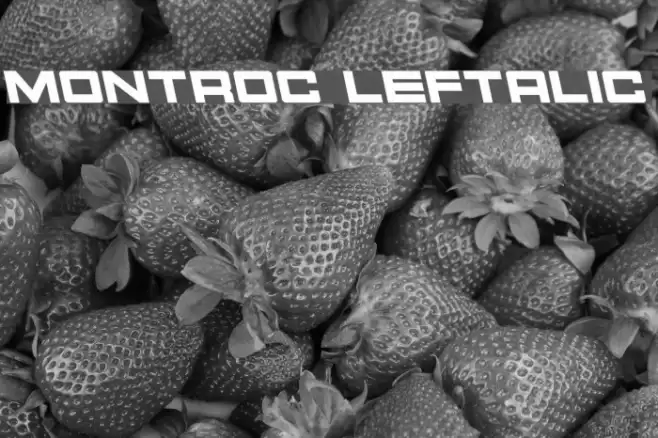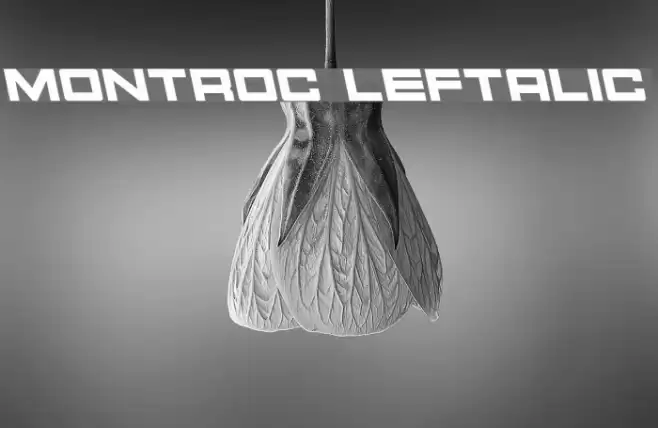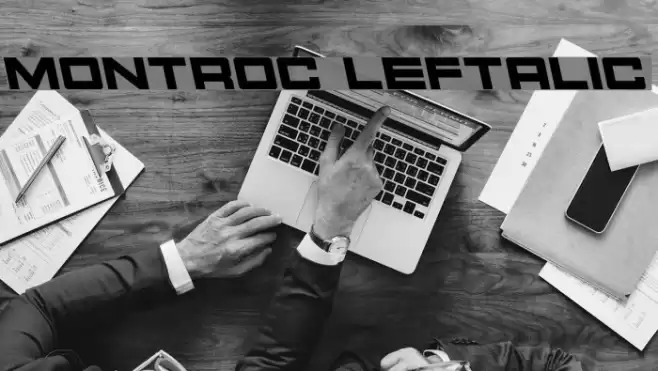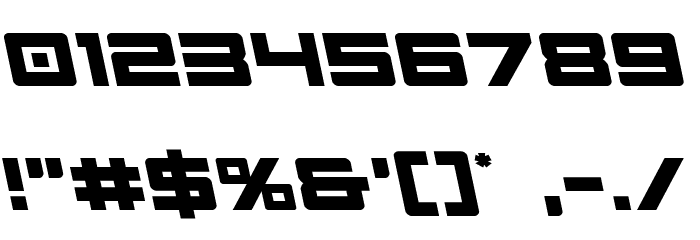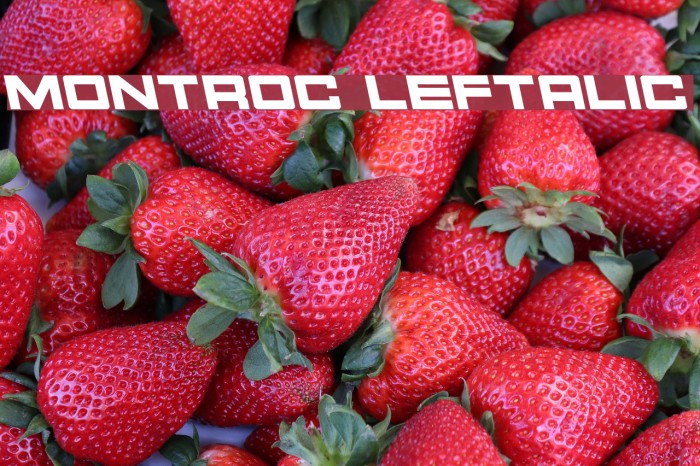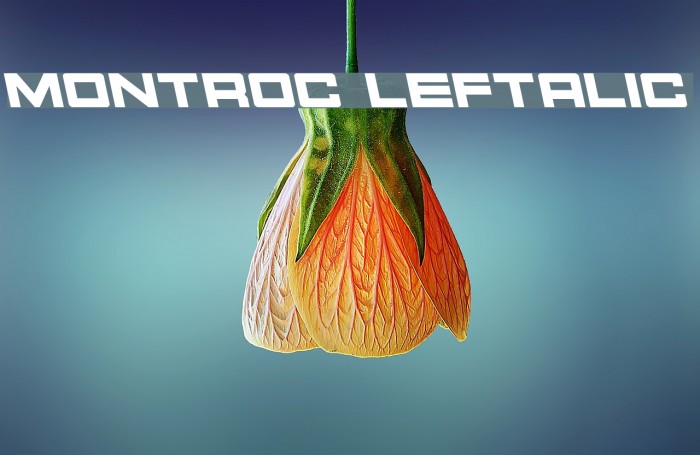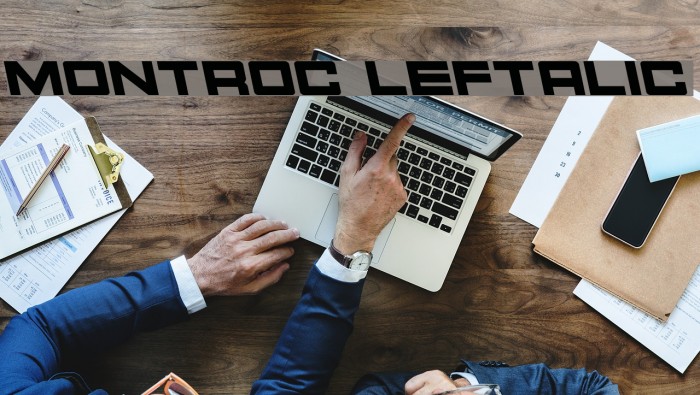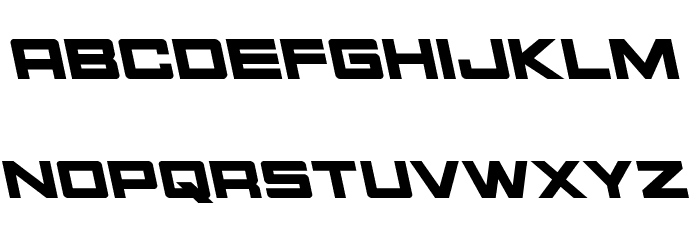
Montroc Leftalic Font
Montroc Leftalic Description
This font features a bold, angular design with a futuristic and dynamic appearance. The characters are slightly slanted, giving a sense of motion and energy. The strokes are thick and consistent, providing a strong visual impact. The geometric shapes and sharp edges contribute to a modern and industrial feel. The font maintains uniformity across uppercase, lowercase, and numerical characters, ensuring readability and coherence. Special characters are designed with the same bold and angular style, making them stand out effectively.
A bold, angular font with a futuristic and dynamic style from Uncategorized fonts.
- Proposed Projects: Ideal for technology branding, sports team logos, video game titles, and sci-fi themed designs.
- Use Case: Logos, Headlines